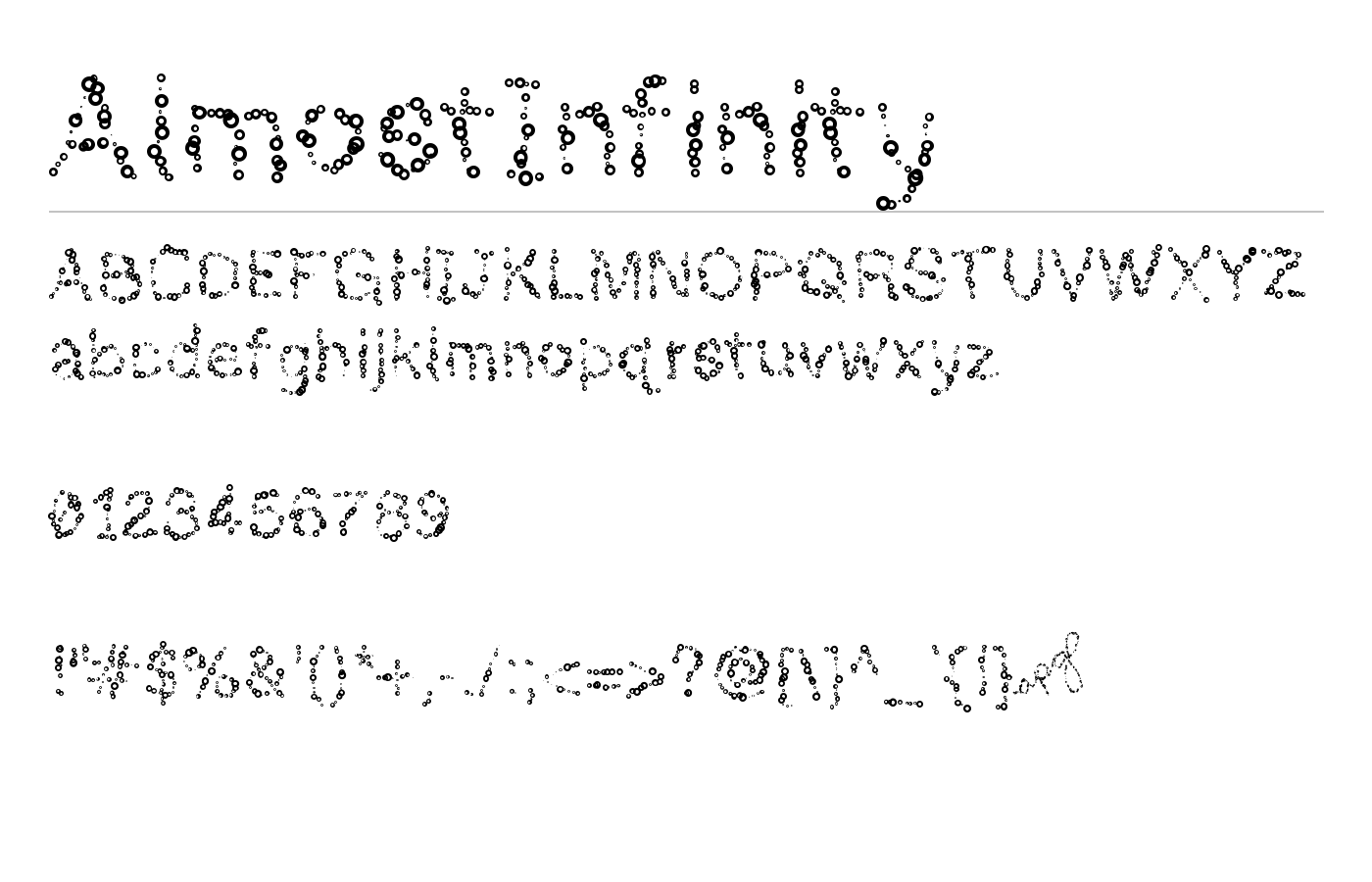
AlmostInfinity is a playful and unique sans serif font composed entirely of small, rounded dots that form whimsical, airy letterforms with a light and delicate feel. Its unconventional dotted structure gives it a modern, experimental vibe that works well for creative projects, eye-catching headlines, or designs seeking a fun and futuristic touch. This font adds a distinctive, informal personality, making it ideal for posters, branding with a quirky edge, or artistic digital media.
AlmostInfinity Font
About AlmostInfinity Font